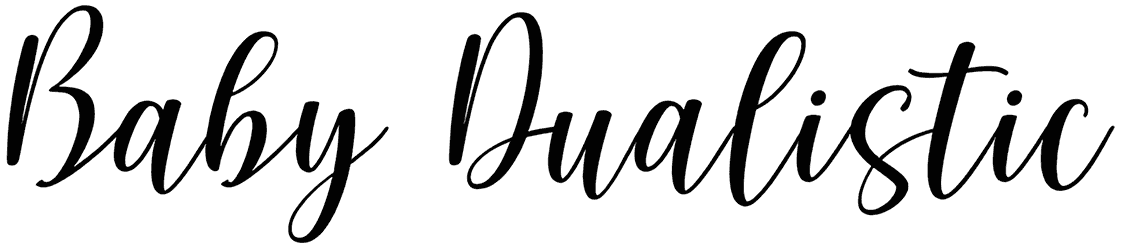
Baby Dualistic Font
Baby Dualistic font is an excellent idea for story headlines, magazines, wedding invitations, and birthday cards since it has a feminine, fairy tale charm. It saves you time by cutting straight to the best feminine font that is a bit unreadable, attractive, and perfect for your site.